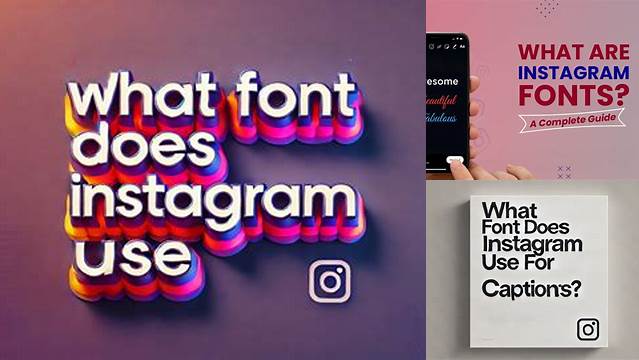
Instagram Fonts: A Guide To Using Cool Fonts For Posts
Hey guys, ever wondered how to make your Instagram posts pop with cool fonts? You're in the right place! We're diving deep into the world of Instagram fonts, covering everything from the basics to some seriously pro tips. Using different fonts can seriously level up your Instagram game, making your content more eye-catching and on-brand. So, buckle up and get ready to transform your Instagram feed! Let's explore how to add a personal touch and create a unique visual identity that truly stands out. This guide will show you step-by-step how to use fonts effectively, no matter if you're a newbie or a seasoned Instagrammer. We'll cover the why, the how, and even the coolest font generators out there.
1. Understanding the Importance of Fonts on Instagram
Alright, first things first: Why do fonts even matter on Instagram? Well, think of your Instagram feed as your digital storefront. It's where you present your brand, your personality, and your content to the world. Fonts play a crucial role in this presentation. They're not just about text; they're about conveying a message, setting a tone, and creating a visual identity. Using the right fonts can dramatically improve your engagement rates, because it helps your audience connect with your content on a deeper level. Choosing the right font can communicate your brand's personality instantly. For example, a playful, handwritten font might be perfect for a lifestyle blogger, while a sleek, modern font might suit a tech company. Consistent font usage creates a cohesive and professional look, making your feed instantly recognizable. This consistency builds brand recognition, making it easier for your followers to remember and engage with your content. When your audience recognizes your brand instantly because of your font choices, your chances of staying top-of-mind increase significantly. It's about more than just aesthetics; it's about building a strong, memorable brand presence. A well-chosen font is like a signature. It tells your audience who you are and what you stand for, without you having to say a word. In essence, fonts are a secret weapon for any serious Instagrammer. They allow you to create a unique visual language that speaks volumes.
2. The Native Instagram Font Options
So, what fonts does Instagram itself offer? Well, the platform provides a few built-in options that are pretty easy to use. You can find these directly within the Instagram app when you're creating a story. When you type text in your story, look for the font selection tool, typically located at the top of the screen. Here, you'll see a handful of options to choose from. These generally include a default font, a modern sans-serif font, and a few others. These options are great for quick text additions, like captions or highlights. However, the variety is limited, and they might not offer the uniqueness you're looking for. The native fonts are pretty basic, but they do the job for simple text overlays. While they get the job done, they often lack the personality and flair needed to really catch your audience's eye. This can be a drawback if you're aiming for a visually distinct look that makes your content stand out from the crowd. The plus side of using native fonts is their ease of use. There's no need to download any extra apps or deal with complicated processes. You simply select your font and start typing. This convenience makes them perfect for quick updates and casual posts. Another advantage is that native fonts are consistently displayed across all devices, so your text will always appear as intended. This isn't always the case when using external font generators. Despite their simplicity, Instagram's built-in fonts are a good starting point, especially if you're new to using custom fonts. They’re a great way to experiment with text overlays without overwhelming yourself with advanced features.
3. How to Use Fonts in Instagram Stories
Want to know how to use fonts in Instagram Stories? Let's break it down step-by-step, shall we? First, open the Instagram app and swipe right from your home screen to open the story camera. Take a photo or video, or upload one from your camera roll. Once you have your image or video ready, tap the 'Aa' icon in the top right corner to add text. Type in whatever text you want to include in your story. Now, you can choose from a few font options that Instagram provides. Tap on the font selection tool, typically located above the keyboard, to see the different styles available. Keep tapping the tool to cycle through the font options until you find one that fits your vibe. Experiment with different colors by tapping the color palette icon to adjust the font's color. You can also resize and reposition your text by pinching and dragging it around the screen. For added flair, you can use the alignment tool to position your text to the left, center, or right. Adding text is super simple, but the built-in options are limited. Consider using external font generators for a more unique look. Don't be afraid to experiment with different font combinations to see what works best for your content. The key is to keep it visually appealing. Practice and see what creates the biggest impact with your followers. You can add multiple text boxes and combine different fonts and colors to create a more dynamic story. This is where you can really express your creativity.
4. Incorporating Fonts into Instagram Post Captions
Adding fonts to your Instagram post captions isn't as straightforward as it is for stories. You can't directly change the font within the Instagram app for your regular feed posts. That's where some clever workarounds come in. The easiest way is to use third-party font generators. These tools allow you to type your caption text and convert it into various font styles. Then, you can simply copy and paste the text into your Instagram caption. Here's how to do it: Search for a font generator online. There are loads of free options available; just type 'Instagram font generator' into your search bar. Type your caption text into the generator's input field. You'll see your text transformed into different fonts. Choose your favorite font style. Copy the formatted text and paste it into your Instagram caption. Make sure to check the formatting on Instagram. Sometimes, the font might look slightly different than in the generator. Be mindful that not all fonts are supported equally across all devices. Some special characters or fonts might not display correctly for all users. It's always a good idea to check how your caption looks on different devices. A little bit of testing can help prevent any formatting issues. This method lets you use a wider variety of fonts, giving your captions a fresh, personalized feel. Adding fonts to your captions can significantly elevate the visual appeal of your posts. It can also help reinforce your brand identity. If you want a visually distinct look, custom fonts are the way to go. This can help you establish a recognizable style that makes your posts stand out. It's a great way to show your creativity.
5. The Best Free Font Generators for Instagram
Alright, let's talk about some of the coolest free font generators out there! These tools are your secret weapon for creating amazing Instagram fonts. Some of the most popular and user-friendly options include: LingoJam is a solid choice. Just type in your text, and it instantly converts it into various font styles. Cool Symbols is another great option, offering a vast selection of fonts and symbols. Instagram Fonts is specifically designed for Instagram and provides a straightforward interface. These generators work by converting your text into Unicode characters, which Instagram supports. When choosing a font generator, consider factors like the variety of fonts offered, the ease of use, and any additional features they might have. Make sure that the generator you choose is easy to navigate, and that the font styles are compatible with Instagram. Try out a few different generators to find the one that best suits your style and needs. Most of these generators are free to use, but some might include ads. The best font generators provide a user-friendly experience that allows you to quickly find and copy the font styles you want. Experimenting with different generators is a fantastic way to find what works best for your brand. Remember that while these tools are great, some fonts might not display perfectly on all devices. It's always a good idea to check your caption on different devices to ensure the font looks as intended. These tools offer a cost-effective way to add personality and flair to your Instagram posts and captions.
6. Choosing the Right Fonts for Your Brand
Choosing the right fonts is about more than just aesthetics, it's about aligning your visuals with your brand's core values. You want to ensure that the fonts you choose are reflective of your brand's personality and the message you want to convey. Here’s a guide: If your brand is playful, consider using a handwritten or whimsical font. If your brand is more serious, choose a clean, modern font. Think about your target audience. What kind of fonts would resonate with them? A font that appeals to a younger demographic might differ significantly from one that appeals to an older audience. Think about consistency. Make sure you have a few core fonts you use across all of your content. That consistency reinforces your brand identity and makes your feed easily recognizable. Limit the number of fonts you use. Overusing fonts can make your feed look cluttered and unprofessional. A good rule of thumb is to stick to two or three fonts maximum. Ensure readability. No matter how stylish a font is, it's no good if it's hard to read. Font size matters, especially for captions and stories. Always choose fonts that are easy to read on different devices. Another important thing is to consider the personality of your brand. If your brand is all about fun and creativity, you might want to consider using a more whimsical or playful font. Consider a font that reflects the essence of your brand. The font should feel authentic to what your brand represents. Always keep the visual harmony of your feed in mind. Consistent font usage creates a unified and professional appearance.
7. Font Pairing: Creating Harmonious Combinations
Creating great font combinations can take your Instagram posts to the next level. It's like mixing and matching outfits – you want your fonts to complement each other, not clash. There are some basic principles to follow: Start by using a primary font for your headlines and a secondary font for your body text. This structure can help differentiate content and create a visual hierarchy. Consider the personality of the fonts. If your primary font is bold and modern, a simple sans-serif might make an excellent pairing. Make sure the fonts contrast each other, but not in an overwhelming way. Don't go overboard with the number of fonts. Stick to two or three fonts to avoid a cluttered look. A good starting point is to pair a serif font with a sans-serif font, or a modern font with a more traditional one. This adds depth and visual interest. When you are exploring font pairings, consider their visual weight. If one font is bold, pair it with a lighter font. This helps create balance. Try out different combinations. Before finalizing your choices, test out different combinations and see what feels right for your brand. Take inspiration from existing brands. Look at what other successful brands are doing with their fonts. Don't be afraid to try new things and experiment with different combinations. Font pairing is all about balance, contrast, and harmony. It’s a key skill in designing visually appealing content. Keep the style in mind and always maintain consistency.
8. Avoiding Common Font Mistakes on Instagram
Okay, let's talk about some common mistakes to avoid! Avoiding these pitfalls can significantly improve the overall look of your Instagram feed. Here are some things to keep in mind: Don’t overuse fonts. Sticking to two or three fonts can make your feed more visually appealing. Don’t pick fonts that are difficult to read. Always ensure that your text is easily readable on different devices and screen sizes. Don’t ignore the importance of font size. Especially for captions. Make sure that your text is big enough to be seen without requiring your audience to squint. Don’t use too many different font styles. This can make your feed look cluttered and unprofessional. Don't forget to proofread. Make sure there are no typos. Don’t underestimate the importance of consistency. Use a consistent font style across your content to create a cohesive brand image. Keep your text clean and simple. Try not to add too much unnecessary text. Don’t assume that all fonts are created equal. Some fonts may not display correctly on all devices. Don’t neglect your audience. Ensure that your fonts are suitable for your target audience. Don't forget to check your font choices across different devices. Avoid these mistakes, and you'll be well on your way to creating stunning Instagram posts. Mastering font usage is all about attention to detail. It takes practice, but the results are worth it. With a little bit of effort, you can make your feed stand out and attract more followers.
9. Understanding Font Styles: Serif vs. Sans-Serif
Let's dig into the basics: serif vs. sans-serif fonts. These are two fundamental categories of fonts, and understanding the difference can significantly impact your choices. Serif fonts have small decorative strokes, called serifs, at the end of the letters. They often feel more traditional, elegant, and formal. Think of fonts like Times New Roman or Georgia. They can be great for headlines or for creating a classic look. Sans-serif fonts, on the other hand, lack these decorative strokes. Sans means without, so these fonts are 'without serifs.' They typically appear clean, modern, and minimalist. Examples include Arial and Helvetica. They're often easier to read on screens and are commonly used for body text. When choosing between serif and sans-serif, consider your brand's personality. For a formal or luxury brand, a serif font might be appropriate. For a tech company, a sans-serif font might be a better fit. In practice, many designers combine serif and sans-serif fonts. Using a serif font for headlines and a sans-serif font for body text can create a visually appealing balance. This combination can also help create visual interest. Think about the readability of the fonts. Serif fonts can sometimes be harder to read in smaller sizes, so consider this when choosing your fonts. Choose fonts that are easy to read on any device. You need to test how these fonts appear to the viewer. Knowing the difference between serif and sans-serif fonts is essential for any designer. Mastering these details can help you convey the right message.
10. Using Symbols and Special Characters in Your Fonts
Want to spice up your fonts? Using symbols and special characters is a great way to add a bit of flair and personality to your Instagram posts. These can be anything from emojis to custom symbols. Here’s how to do it: Use a font generator. Most font generators offer a wide variety of special characters that you can incorporate into your text. Insert emojis. Emojis can add personality and help to make your content more engaging. Add decorative symbols. Symbols like stars, hearts, or other images can make your text stand out. Use Unicode characters. Unicode includes a vast array of symbols and characters that can be copied and pasted into your text. When using symbols, consider the readability. Overdoing it can make your text harder to read. Use them sparingly. Ensure compatibility. Not all devices support all symbols, so check how your post looks on different devices. Consider your brand’s identity when using symbols. Use symbols that are reflective of your brand. Symbols add personality to your posts. Emojis can also make your message more engaging and appealing. When used well, these can elevate your Instagram posts. When you use symbols creatively, you will gain more attention from your audience. Practice with different combinations. Experiment with different combinations to see which ones work best for your content. Always try to match your posts' aesthetic to your brand's personality. Doing this will help create a more engaging experience for your audience. Make sure the combination is visually appealing.
11. Optimizing Fonts for Readability on Instagram
Readability is key. Your fonts should be visually appealing while also making sure your message is accessible and easy to understand. Here are some tips for optimizing your fonts for readability: Choose fonts that are easy to read. Avoid overly stylized fonts, especially for body text. Pay attention to font size. Make sure your text is large enough to be easily read on different screen sizes. Use appropriate line spacing. Ensure there is enough space between lines to avoid your text from looking cramped. Consider the background. Choose fonts that contrast well with the background of your post. Use color effectively. Make sure your font color contrasts with the background. Consider font weight. Bold fonts can be easier to read, but use them sparingly. Test on different devices. Check how your text appears on both mobile and desktop devices. Keep it simple. Avoid using too many different fonts or styles. Proofread carefully. Always check your text for any spelling or grammatical errors. Focus on your target audience. Choose fonts that are appropriate for your target demographic. Prioritizing readability is essential for effective communication. A well-readable font will boost your content’s impact. The goal is to ensure your audience can effortlessly understand your message. This approach makes your message accessible, leading to increased engagement. Readability boosts content impact. It allows you to clearly communicate your ideas.
12. Font Size and Scaling for Optimal Visual Impact
The size of your fonts plays a significant role in how your message is received. Finding the perfect balance between visual appeal and readability can have a big impact. Consider these tips: Start with the body text, ensuring it is easily readable. For captions, aim for a size that can be read on smaller screens. Test different sizes on various devices. Use headlines that are significantly larger than your body text. This creates a clear visual hierarchy. Make sure your font sizes are consistent. Varying font sizes can be visually appealing. However, maintain consistency within your post captions. Maintain a good contrast. The size of your fonts must not overshadow your overall design. Experiment with different font sizes to find a perfect visual balance. Ensure your text is readable. Always put readability first. The key to making your message more accessible to your audience is to adjust your fonts appropriately. The optimal font size and scaling greatly affect your posts. It boosts your content’s impact and overall appeal. Testing your content on different devices is key to ensuring that your fonts look perfect. This approach makes your message clear and engages with your audience. Consider your target audience’s viewing experience.
13. Using Fonts to Create Visual Hierarchy
Visual hierarchy is about organizing your content so that the most important information stands out. Fonts play a crucial role in achieving this. Here's how: Use different font sizes to create a clear visual order. Use larger fonts for headlines, smaller ones for body text, and even smaller ones for subheadings. Create contrast by pairing bold fonts with lighter ones, or serifs with sans-serifs. Make the important information stand out. Use color strategically. Different colors can also indicate a hierarchy. Spacing is vital. Add more space between headlines and body text. Create visual consistency. Be sure to be consistent with your fonts, sizes, and styles. Use bold fonts sparingly. Consider the overall design. Make your post visually appealing. Always put the most important information first. The goal of visual hierarchy is to guide your audience's eye. Well-organized content is more engaging and informative. Creating an efficient visual hierarchy is essential. This way, your audience can easily read your posts. The goal is to guide the reader's eyes. This approach ensures your content is easily digestible.
14. Font Consistency and Brand Identity on Instagram
Consistency is key when it comes to establishing a strong brand identity on Instagram. The fonts you choose are a vital part of this. Here are some key points: Choose a core set of fonts. Stick to a small number of fonts. Use the same fonts consistently. This will make your brand recognizable. Establish a style guide. Document your fonts, sizes, and colors. Ensure font compatibility. Make sure your chosen fonts are compatible across all devices. Integrate your fonts into all your content. From stories to captions. Use your fonts to evoke emotions. Select fonts that communicate your brand’s personality. Regularly update your content. Always keep your brand consistent. Seek inspiration from the best. Study the fonts of successful brands. Stay true to your brand. Use the fonts that reflect your brand identity. Test your content. Always see how it looks on different devices. Consistency builds brand recognition. It lets your audience easily recognize your posts. Brand identity creates a unique visual identity. It is also a key element of branding.
15. Font Design Trends for Instagram in 2024
Staying up-to-date with font design trends can help you keep your Instagram feed feeling fresh and relevant. Here are some trends to watch out for in 2024: Handwritten fonts continue to be popular. They add a personal touch. Minimalist sans-serif fonts remain a strong choice. They offer a clean and modern look. Bold, oversized fonts. They are a great way to grab attention. Rounded fonts. These can create a friendly vibe. Experimental fonts. These can add a unique and creative feel. Vintage-inspired fonts. They can evoke a sense of nostalgia. Monospaced fonts. This creates a retro aesthetic. Color gradients. Use these to create a dynamic visual experience. Custom fonts. Always remember to think about your brand identity. Pay attention to accessibility. Accessibility ensures that everyone can view your content. Trends change quickly, so it’s good to experiment. Staying up-to-date with the latest trends is a good idea. Find inspiration on platforms like Pinterest and Behance. It is important to stay informed of the newest trends.
16. Aligning Fonts with Your Content's Tone and Style
Your choice of fonts should always align with your content’s tone and style. The fonts you choose should reflect the message you're trying to communicate. Here's a guide: Choose fonts that match your content's overall mood. If your content is lighthearted, choose a playful font. If it’s serious, select a more formal one. Think about your target audience. Consider what fonts would resonate with them. Use fonts to reinforce your message. Choose fonts that complement your content. Consider your brand’s personality. Your font choice should reflect your brand’s image. Keep it simple. Use a limited number of fonts. Ensure readability. Always choose fonts that are easy to read. Think about consistency. Apply your chosen fonts across all your content. Prioritize accessibility. Select fonts that are accessible for all. A well-chosen font can significantly enhance your message. Your fonts can boost your brand’s personality. When the font matches your style, the result can be a visually appealing content. Aligning your fonts with your content is a must.
17. Leveraging Fonts for Instagram Advertising
Fonts are a powerful tool in Instagram advertising. They can grab attention and effectively communicate your message. Here's how to make the most of your font choices: Choose fonts that complement your brand. Ensure your font aligns with your brand's image. Use fonts that are eye-catching. Use bold or unusual fonts to grab attention. Focus on clear messaging. Prioritize your message. Highlight key benefits. Use larger fonts to highlight benefits. Create a visual hierarchy. Guide your audience's eyes with font sizes. Use font colors strategically. Create contrast. Ensure that your fonts are readable. Easy reading is important. Test your ads. Always test your ads on different devices. Keep your ads consistent. Your font use must be consistent. Consider your target audience. Always think about your target audience. Strategic font use will help your ads stand out. Ads that use fonts effectively tend to gain more audience attention. Leveraging fonts boosts your advertising efforts. Use fonts that deliver your message clearly.
18. Troubleshooting Font Display Issues on Instagram
Sometimes, you might run into font display issues on Instagram. Here's how to troubleshoot and solve some of the most common problems: Fonts not displaying correctly. Not all fonts are compatible with Instagram. Fonts appearing differently on different devices. Always check your content on different devices. Font size issues. Ensure the font size is readable. Font character problems. Check for character support. Font generator problems. Try different generators. Test your content. Review how it looks to others. Check the app. Make sure the Instagram app is updated. Clear the cache. Consider clearing the Instagram app cache. Reinstall the app. Try reinstalling the Instagram app. Contact Instagram. Contact Instagram support. Solving font display issues may need patience. Many issues can be addressed with simple solutions. Test and review your content for the best results. Troubleshooting ensures a positive user experience. Always seek for the best viewing experience.
19. Using Fonts to Create Engaging Instagram Stories
Fonts are a key element for creating engaging Instagram Stories. You can use them to create visually appealing content. Here are some tips: Use fonts to add text overlays. Add text to your videos and photos. Create quizzes and polls. Use fonts to highlight poll results. Add captions to videos. Make sure your videos are accessible. Add text animations. Add animated text for a dynamic look. Use fonts to share quotes. Use fonts to create a call to action. Encourage your audience to engage. Use the right font. Select fonts that reflect your brand. Keep your text concise. Don’t overcrowd your story. Well-designed stories encourage user engagement. Stories are an excellent medium for sharing content. Make your stories visually appealing. Great-looking stories grab the audience’s attention. Make your content interactive. You should create engaging content. Engaging stories keep the audience interested.
20. Customizing Fonts with Color and Backgrounds
Color and background can enhance your fonts. Use these elements to enhance your content and visual appeal. Here's how to customize fonts: Use a color palette. Select colors that reflect your brand. Use contrasting colors. Create visual interest. Use gradients. Create a dynamic visual look. Use background colors. Make sure your font stands out. Use background images. Be sure your text is readable. Use text boxes. Add a border around your text. Experiment with text effects. Add shadows and outlines. Combine fonts and colors creatively. Keep the colors consistent. Test different combinations. Always test your content. Customizing fonts boosts visual interest. It improves your brand. Customizing fonts and backgrounds is essential. Well-designed content encourages interaction. Always create a brand style.
21. Measuring the Impact of Fonts on Your Instagram Performance
Measuring the impact of your font choices is essential to improving your Instagram performance. Here's how you can track your font impact: Monitor engagement metrics. Check likes, comments, shares, and saves. Track click-through rates. See how your fonts influence engagement. Use Instagram insights. Utilize insights to monitor your post performance. Use A/B testing. Test different font combinations. Analyze your audience demographics. Track your content trends. Use analytics to optimize your strategy. Get feedback. Request feedback from your audience. Pay attention to trends. Stay updated on current trends. Measuring the impact of your fonts lets you improve. You can use data to make informed decisions. Tracking fonts provides actionable insights. It lets you optimize your Instagram strategy. Font choices can be the key to improving your content.
22. Instagram Font Accessibility: Ensuring Everyone Can Read Your Posts
Font accessibility is crucial for inclusivity. Make your content accessible for all audiences. Here are some tips: Choose easy-to-read fonts. Use clear and readable fonts. Ensure sufficient contrast. Choose colors that contrast well. Use a readable font size. Make it readable for everyone. Use alt text. Add alt text to all images. Provide captions for videos. Consider colorblindness. Use contrast to make text readable. Test your content. See how it looks on different devices. Follow accessibility guidelines. Make sure everyone is included. Making your content accessible will make it inclusive. Accessibility helps all users. Accessible content makes everyone included. Good choices support your audience.
23. Combining Fonts with Other Design Elements for Stunning Posts
You can combine fonts with other design elements to elevate your posts. Here’s how to achieve stunning results: Use images wisely. Pair your fonts with high-quality images. Use visual elements. Include graphics and illustrations. Consider color palettes. Choose colors that enhance your fonts. Use white space effectively. Use space for a balanced look. Use visual hierarchy. Guide your audience's eyes. Use consistent branding. Ensure consistency. Create a theme. Develop a theme for your content. Keep your content simple. Avoid overwhelming your audience. By combining fonts with other design elements, you can create visually stunning posts. This approach keeps your audience interested. Combine fonts with other design elements for a polished, eye-catching look. Well-designed posts grab audience's attention. High-quality design is essential for all posts.
24. Legal Considerations: Copyright and Font Usage Guidelines
It's vital to understand the legal considerations surrounding fonts on Instagram. You should always respect copyright and adhere to the usage guidelines. Here's what you need to know: Always be aware of font licenses. Some fonts are free; some are paid. Review the terms of service. Check if the fonts are available for commercial use. Understand font copyrights. Always cite sources. Comply with all license restrictions. Respect the intellectual property rights of designers. Ensure your font use aligns with all regulations. When in doubt, consult a legal expert. Always protect your brand. Always comply with the law. Understanding these guidelines will make your brand safe. Following all guidelines is a must.
25. Font Resources and Inspiration: Where to Find the Best Styles
Finding the best font styles for your Instagram posts is easy with the right resources. Explore these resources and get inspired: Use font websites. Sites like Google Fonts and Font Squirrel. Explore design platforms. Platforms like Behance and Dribbble. Follow font designers. Get inspiration from successful brands. Use font discovery tools. These tools can help you identify fonts. Use Pinterest. Try design software. Adobe Creative Cloud is a great option. Explore font libraries. Discover different font styles. Font resources offer inspiration. They provide a wealth of options for your content. Explore and experiment with different fonts.
26. Font Psychology: How Fonts Influence Perception
Font psychology is about how fonts influence our perceptions. You can strategically use fonts to create the intended impression. Here’s how it works: Different fonts communicate different emotions. Serif fonts often convey tradition and elegance. Sans-serif fonts tend to create a modern and clean look. Handwritten fonts can create a more personal and friendly vibe. Consider your brand’s personality. Ensure your fonts align with the image. Font selection greatly affects perception. Your choice will make a big difference. Experiment with different font styles. Your audience perception changes with font choices. Understand how your fonts will be interpreted. Font psychology guides your design choices. Select the fonts carefully. Make the perfect choice. The way that people see your brand will be impacted by your choices. Font psychology is about how you portray your message. When fonts match, your message is enhanced.
27. Font Management: Organizing Your Font Library Efficiently
Managing your font library efficiently is essential for a smooth workflow. You can keep your fonts well organized. Here's how: Organize your fonts logically. Create a folder system. Use font management software. Such as Adobe Font or FontBase. Label your fonts carefully. Give them descriptive names. Tag your fonts by style and purpose. Create a font inventory. This helps you keep track. Regularly review and update your fonts. Delete unused fonts. Back up your font library. Always protect your fonts. Keep your font library organized. Keeping your fonts organized improves workflow. Efficient management is a must. It is essential to use fonts effectively.
28. The Role of Fonts in Storytelling on Instagram
Fonts can be used to tell stories on Instagram. You can creatively use fonts to convey narrative and engage your audience. Here's how: Use different fonts for different characters. Use fonts to set the mood. Use fonts to create a visual narrative. Use fonts to guide your audience. Combine fonts with images. Use fonts to highlight key moments. The strategic use of fonts enhances storytelling. The use of fonts can elevate a story. Engaging stories can captivate audiences. The fonts are a key part of a story. The correct font choices will enhance your stories. Storytelling and fonts are the perfect combinations.
29. Using Fonts to Promote Your Brand's Voice and Values
Fonts are an excellent way to promote your brand. You can effectively communicate your voice and values. Here's how: Choose fonts that reflect your brand values. Select fonts that match your brand's voice. Use fonts to build a visual identity. Consistently use your fonts. Make your brand recognizable. Use fonts to convey emotions. Use your fonts to show your personality. Use fonts strategically. Strategic font use improves brand communication. Use fonts that reflect your mission. The fonts you use will speak volumes. Your brand voice will shine through your fonts. Using your fonts will show your identity. Well-chosen fonts tell your story.
30. The Future of Fonts on Instagram: Trends and Predictions
The world of Instagram fonts is constantly evolving. Here are some trends and predictions: Personalized fonts. Customized fonts will take over. Dynamic fonts. Expect animated and interactive fonts. Adaptive fonts. Expect fonts that adapt to the content. AI-powered font selection. The use of AI will influence font choice. Font integrations. Fonts will seamlessly integrate. 3D fonts. Expect more immersive fonts. Focus on accessibility. Accessibility will be important. Stay ahead of the curve. These trends will shape the future of Instagram fonts. The font trends will create dynamic content. The future is about innovation and creativity. Font trends will offer creative opportunities. Always keep your content updated. Make your content stand out.